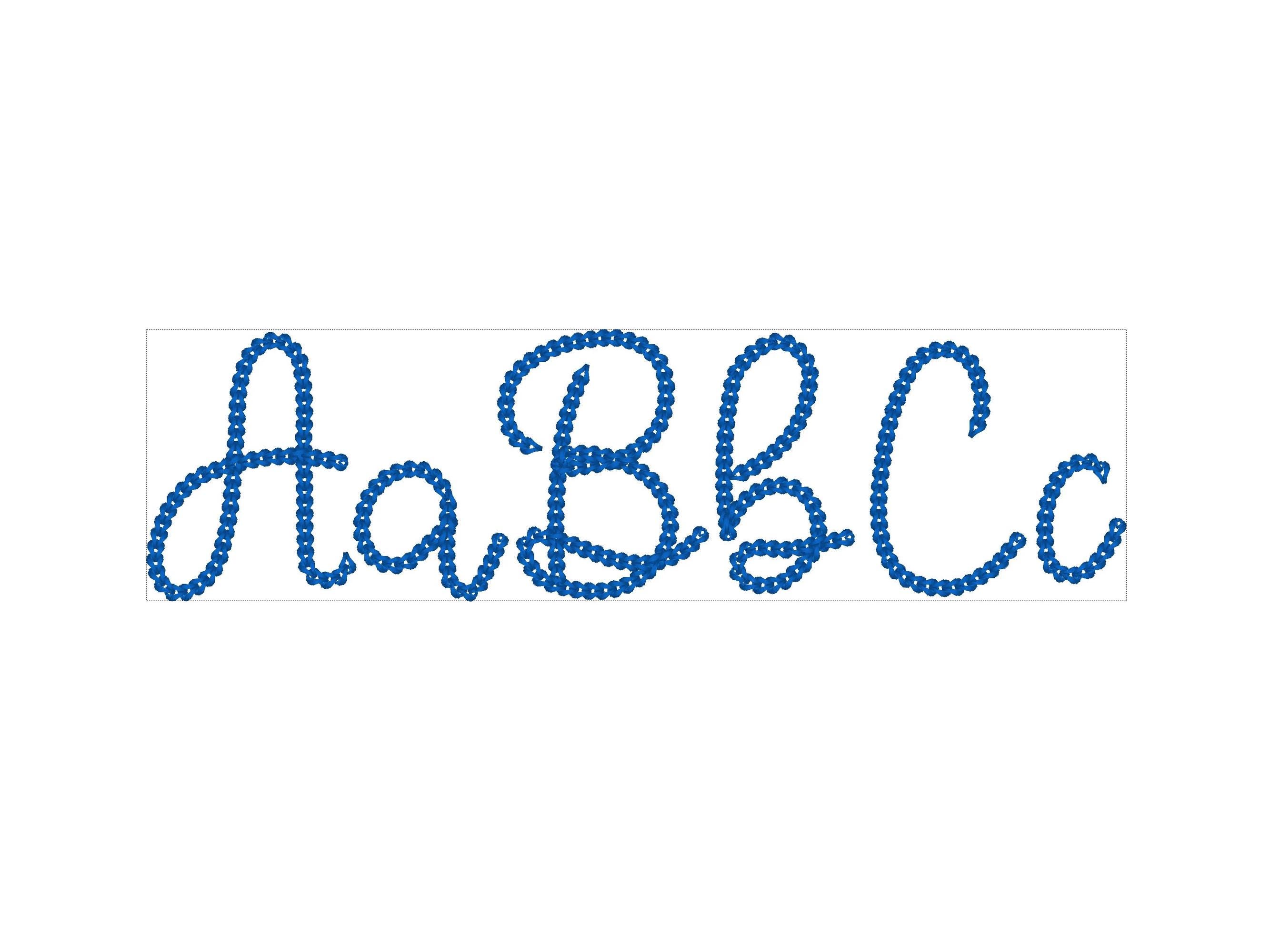
Bold Dense Hand Chain stitch script FONT machine embroidery designs in alphabet letters knit sweater handmade effect chain name, and BX
Bold Authentic Hand Chain stitch script FONT machine embroidery designs in alphabet letters knit sweater handmade effect chain name, and BX included
Entire alphabet uppercase and lowercase letters Aa-Zz, numbers 0-9, and a period.
This is a great font!